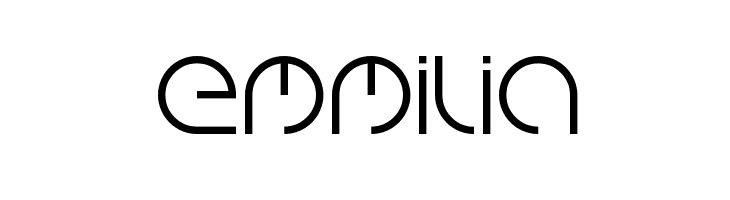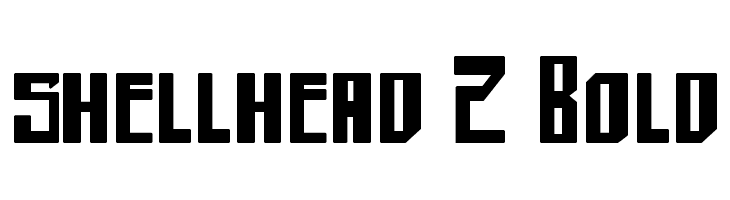
( Fonts by www.junkohanhero.com )
A bold, distressed font with a cut-out, ransom note style.
( Fonts by Kurdz - vividbluezz.weebly.com )
A playful, casual handwritten font with irregular strokes and a spontaneous feel.
( Fonts by weknow - Wino S Kadir )
A futuristic and geometric font with abstract letterforms.
( Fonts by weknow - Wino S Kadir )
A futuristic and abstract font with geometric shapes and consistent line weight.
( Fonts by Press Gang Studios - Andeh Pinkard - www.pressgang-studios.com )
A bold, italic, and angular font with a futuristic style.
( Fonts by Press Gang Studios - Andeh Pinkard - www.pressgang-studios.com )
A bold, geometric font with a strong, angular design.
( Fonts by Press Gang Studios - Andeh Pinkard - www.pressgang-studios.com )
A bold, geometric font with sharp angles and a blocky appearance.
( Fonts by Press Gang Studios - Andeh Pinkard - www.pressgang-studios.com )
A bold, italicized font with sharp, angular lines and a futuristic style.